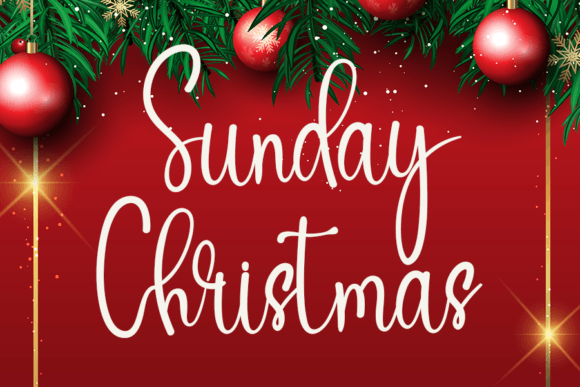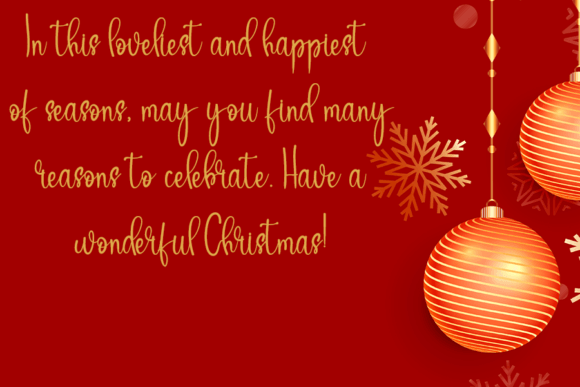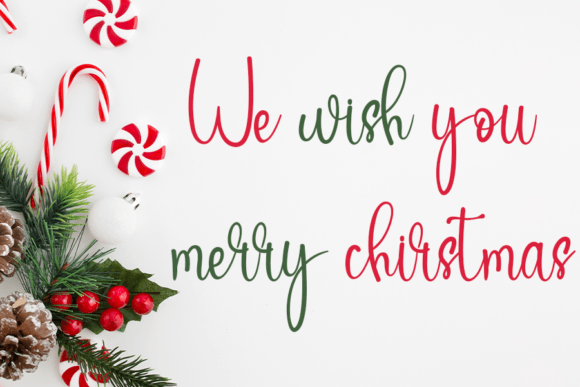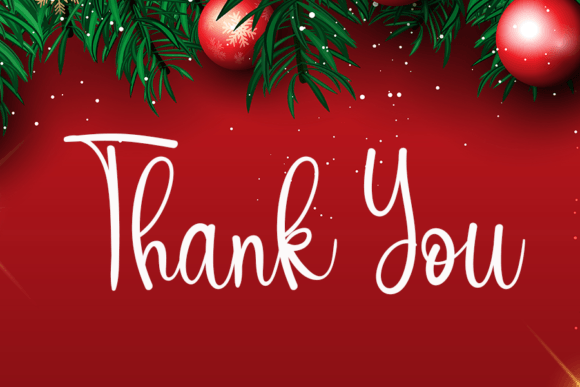
Sunday Christmas Font
About Sunday Christmas Font
Sunday Christmas Font is a cheerful and friendly handwritten typeface that brings a warm holiday spirit to your creative projects. Designed with simplicity and charm in mind, this font captures the cozy joy of the Christmas season, making it perfect for festive creations of all kinds.
Ideal for a Wide Range of Uses
Whether you’re crafting handmade holiday cards, designing digital greetings, or putting together a Christmas-themed presentation, Sunday ChristmasFont adapts beautifully. In fact, its smooth strokes and soft curves offer a touch of elegance while still maintaining a casual and approachable feel.
You can use it for:
• Greeting cards and seasonal invitations
• Christmas social media content
• Product packaging for festive items
• Wintertime blog headers and titles
• Personalized gift tags and DIY labels
Easy to Read, Fun to Use
What makes Sunday Christmas Font especially useful is its readability. Even in small sizes or on busy backgrounds, it remains clean and legible. This makes it a great choice for both display text and body content, especially when you want to add a handwritten charm to your message.
Moreover, the font’s organic flow ensures that every word looks natural, making your designs feel both personal and polished.
Add Festive Flair to Every Project
From holiday decorations to e-cards, Sunday Christmas Font gives your work a playful yet refined appearance. Additionally, it pairs well with serif or sans-serif fonts for eye-catching combinations that highlight your creativity.